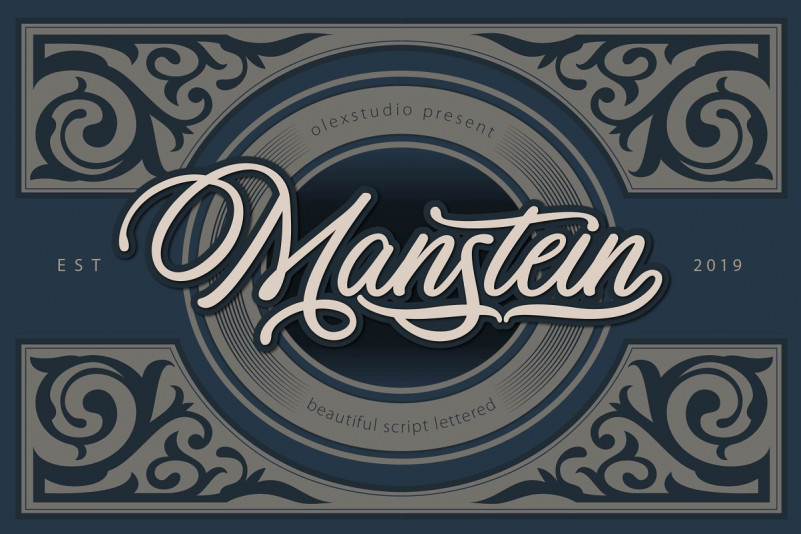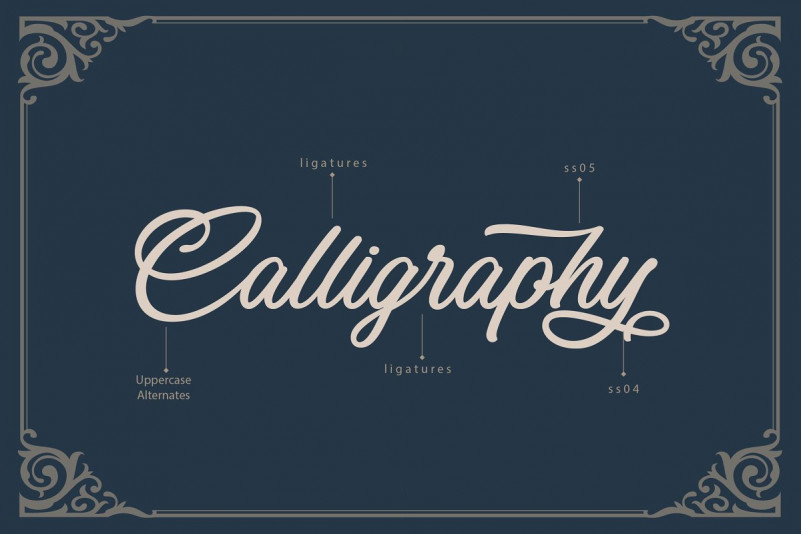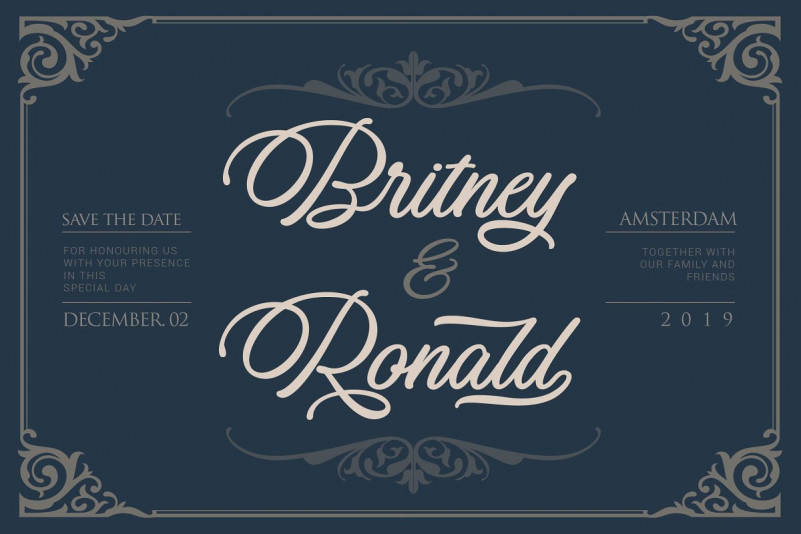
MANSTEIN Font
Manstein is a beautiful Script font, This Font will look gorgeous on all your designs, invitation, book, branding materials, logo’s, t-shirt, poster and all project design other.